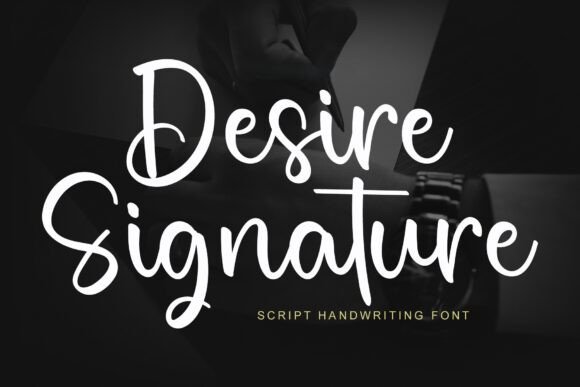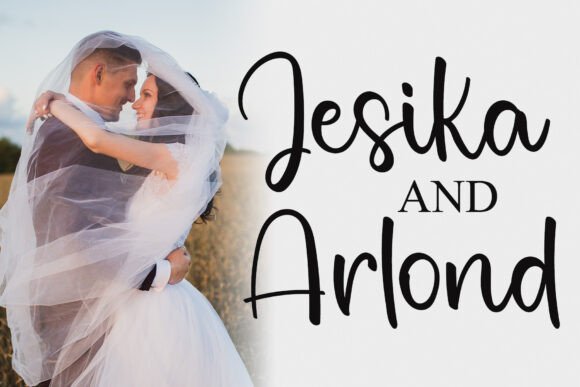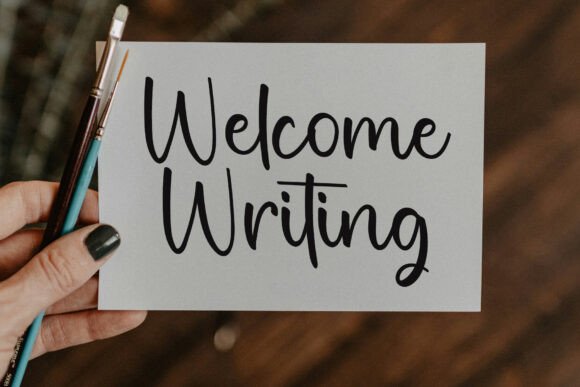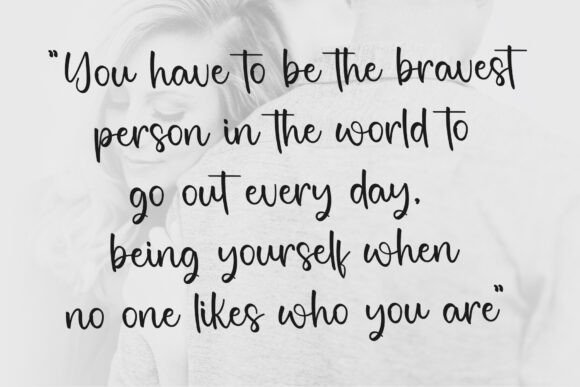
Desire Signature Font
About the Desire Signature Font
The wait is over! The incredible Desire Signature Font is now available for your design toolkit. Desire Signature is a font that exudes class, combining the beauty of script handwriting with a bold and timeless vintage touch. With its fluid strokes, graceful curves, and dynamic flow, this font is perfect for creating a sophisticated yet powerful impression. Whether you need a stylish signature, branding design, or nostalgic vintage aesthetics, Realistic Vintage delivers elegance and uniqueness effortlessly.
Desire Signature thrives in applications requiring a touch of vintage elegance and bold sophistication. It excels in logo design, short headlines, and invitations where its refined script style makes a strong statement. Consider it for packaging of high-end products or branding materials for businesses emphasizing heritage and quality. However, its ornate nature makes it less suitable for body text or UI elements where legibility at smaller sizes is crucial.
Pairing Desire Signature with a clean sans-serif like Montserrat or a geometric sans-serif like Futura creates a balanced contrast, allowing the script font to shine without overwhelming the design. For a warmer feel, a serif like Playfair Display could also complement its vintage character. Avoid pairing it with other highly decorative or script fonts to prevent visual clutter.
The overall personality of Desire Signature is sophisticated and confident, conveying a sense of timeless quality and understated luxury. It’s ideal for brands aiming for a premium, established image.
Desire Signature Font Usage Examples
Desire Signature Font Example